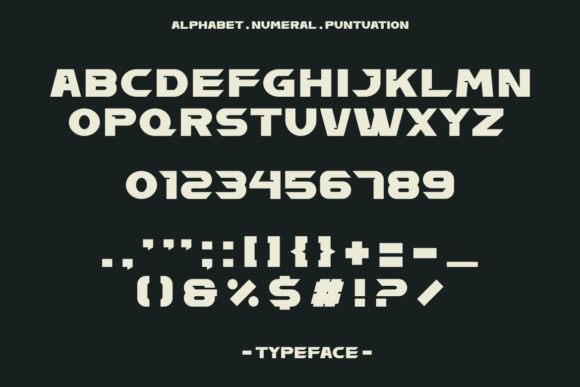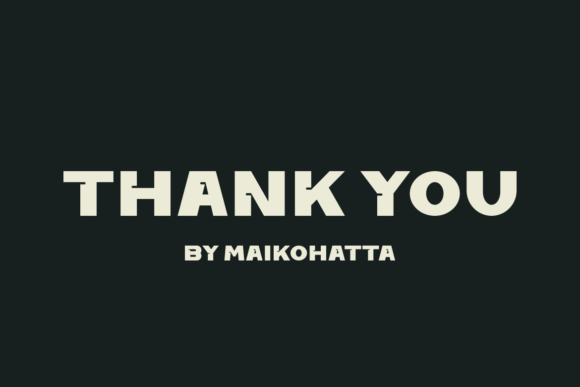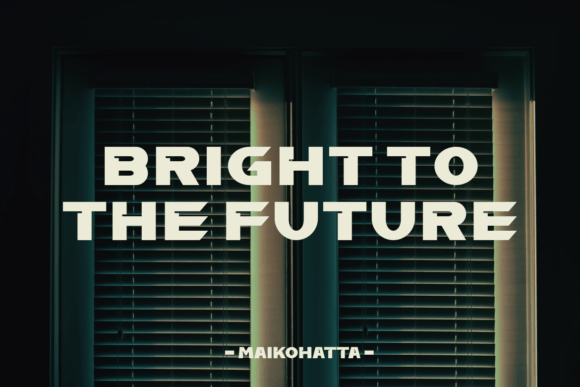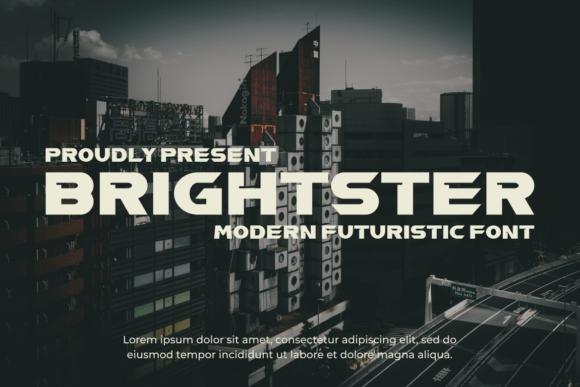
**BRIGHTSTER Font** – Elevate Your Designs with a Modern and Bold Display Font
In the world of design, fonts play a crucial role in conveying the message and aesthetic of a brand. For designers and crafters looking for a font that makes a statement, **BRIGHTSTER Font** is an excellent choice. This modern font is bold, authentic, and versatile, making it perfect for a wide range of applications, from logos and templates to sports branding and more.
What Makes **BRIGHTSTER Font** Stand Out?
**BRIGHTSTER Font** is designed to grab attention. Its bold and authentic style ensures that your designs stand out in a crowded marketplace. Whether you’re working on a logo, brochure, or social media template, this font is sure to make a lasting impression. Its modern aesthetic ensures that your designs look contemporary and fresh, appealing to a wide audience.
One of the key benefits of **BRIGHTSTER Font** is its versatility. It’s suitable for a wide range of contexts, including:
- Logo Design: Create a bold and memorable logo that represents your brand’s personality.
- Template Design: Use **BRIGHTSTER Font** in your templates for brochures, flyers, and posters to add a modern touch.
- Sports Branding: Its bold and energetic style makes it perfect for sports-related branding projects.
- Digital Media: Enhance your social media posts, website headers, and email newsletters with a font that demands attention.
Why Choose **BRIGHTSTER Font**?
There are several reasons why **BRIGHTSTER Font** should be your go-to choice for your next design project:
- Unique Style: Its bold and authentic style ensures your designs are unique and stand out.
- Easy to Read: Despite its boldness, **BRIGHTSTER Font** remains clear and easy to read, making it perfect for a wide range of applications.
- Customizable: Experiment with different sizes, colors, and effects to make **BRIGHTSTER Font** your own.
- Time-Saving: With **BRIGHTSTER Font**, you can create professional-looking designs quickly and efficiently.
How to Use **BRIGHTSTER Font** Effectively
To get the most out of **BRIGHTSTER Font**, consider the following tips:
- Pair it with Other Fonts: Combine **BRIGHTSTER Font** with complementary fonts to create visual interest and hierarchy.
- Experiment with Colors: Try different colors and gradients to see what works best with your design.
- Play with Sizes: Use varying sizes to emphasize certain parts of your text and create a dynamic look.
**BRIGHTSTER Font** is a powerful tool for designers and crafters looking to elevate their designs. Its bold and authentic style, combined with its versatility and ease of use, makes it an excellent choice for a wide range of projects. Whether you’re working on a logo, template, or sports branding, **BRIGHTSTER Font** is sure to help you create something memorable. So why wait? Download **BRIGHTSTER Font** today and take your designs to the next level!